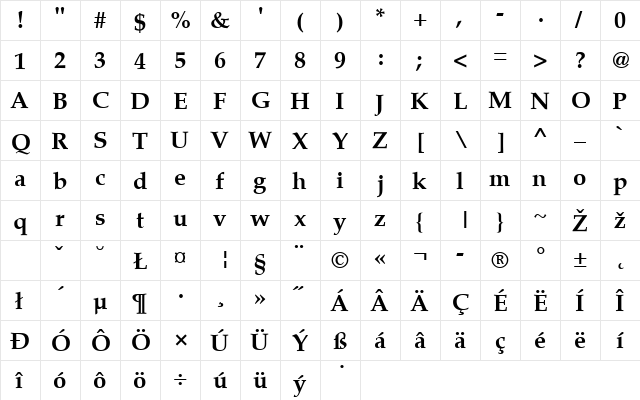
PaltusAntNo3LEE Bold
Design Context for PaltusAntNo3LEE Typeface
PaltusAntNo3LEE offers clean, dependable letterforms without strong stylistic allegiance, making it a practical choice for designers who need flexibility. The heavy weight commands attention and anchors typographic hierarchies.